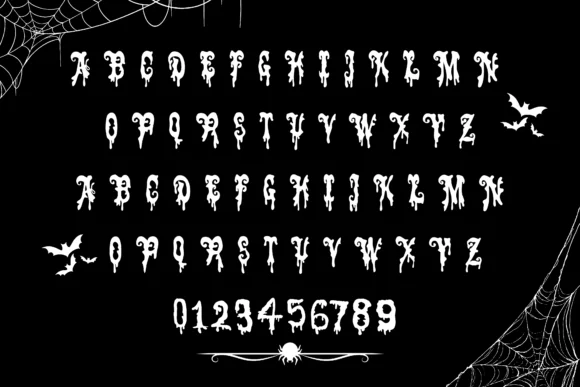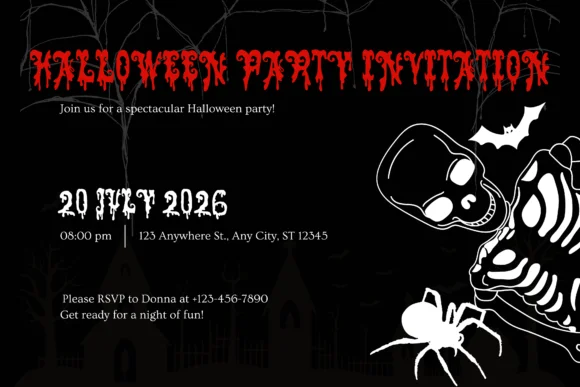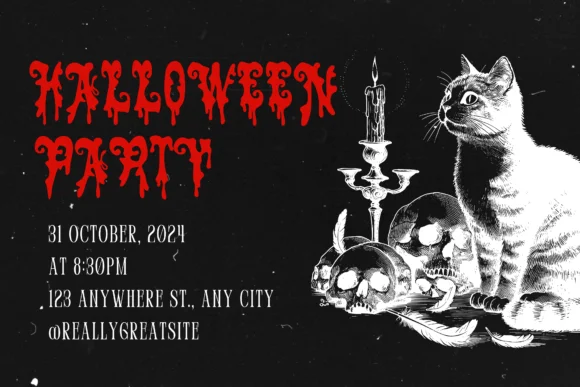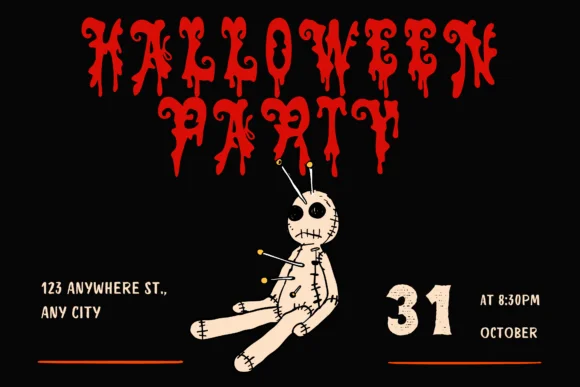
Halloween Night Font
This atmospheric font is perfect for nighttime Halloween festivities, after-dark spooky celebrations, midnight Halloween events, evening horror attractions, nighttime trick-or-treat activities, moonlit Halloween parties, nocturnal seasonal marketing, dark Halloween branding, nighttime Halloween displays, and mysteriously nocturnal Halloween messaging materials.
Halloween Night Font is exciting because it embodies the transformative magic that occurs when daylight fades and October 31st truly begins through its mysteriously crafted letterforms that seem to emerge from the gathering darkness like shadows coming alive with supernatural purpose. The font features darkly elegant characters with nocturnal proportions and midnight details that capture the profound transformation that happens when ordinary autumn evening becomes Halloween night, when jack-o'-lanterns first flicker to life and the boundary between our world and the supernatural realm grows thin enough for magic to flow freely, incorporating shadow-inspired flourishes and starlight elements that create typography as atmospheric and enchanting as the first moment when streetlights illuminate costumed figures moving through neighborhoods transformed by Halloween's nocturnal spell. Each letter showcases the deep mystery and supernatural intensity that makes Halloween night the most magically charged evening of the year, with midnight curves and shadow accents that transform ordinary text into expressions of nocturnal enchantment that capture the way darkness itself becomes a participant in Halloween's greatest magic.
The Halloween Night Font family includes nocturnal style variations: Regular, Bold, Light, Starlit, and Moonbeam versions. The collection features special nighttime elements including shadow accents, starlight flourishes, moonbeam details, and nocturnal ornaments. Additional components include nighttime borders, shadow frames, midnight decorations, and mysteriously atmospheric ornamental designs that enhance the font's Halloween night appeal and create cohesive nocturnal Halloween themes.
Evening event organizers and nocturnal Halloween enthusiasts will find Halloween Night Font to be a perfect resource for creating atmospherically powerful Halloween communications that celebrate the unique enchantment and supernatural transformation that makes Halloween night the most magical and mysteriously beautiful evening of the entire year. This atmospherically crafted font transforms ordinary Halloween messaging into nocturnal expressions that resonate with audiences who understand that Halloween's greatest magic happens when darkness falls and the night becomes alive with supernatural possibility.
The typeface includes comprehensive character support with atmospheric styling that maintains excellent readability while conveying the mysterious beauty and nocturnal enchantment of Halloween night celebrations. The font's darkly magical design ensures atmospherically stunning results across both intimate evening applications and large-scale nighttime Halloween productions.
Perfect for nighttime Halloween events, evening celebrations, atmospheric seasonal marketing, and mysteriously enchanting Halloween communications, this font delivers atmospherically magical visual impact that communicates nocturnal mystery, supernatural transformation, and the profound enchantment that makes Halloween night such an extraordinarily beautiful and mysteriously powerful celebration of darkness and magic.